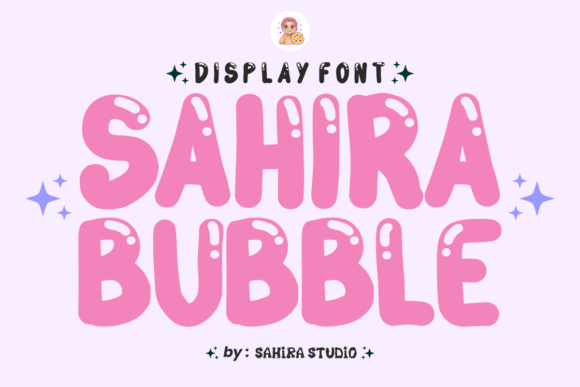
Sahira Bubble: A Springy, Handmade Display Font for Bold Designs
In the crowded landscape of digital and print media, grabbing attention often comes down to a single element: the typeface. While standard sans serif fonts provide clarity and traditional serif fonts offer authority, there are moments when a project demands something with more personality. This is where Sahira Bubble steps in. As a springy, handmade bubble display font, it brings an immediate sense of playfulness and energy that rigid, geometric typefaces simply cannot replicate. Whether you are designing a logo for a children's brand or creating social media graphics for a fun event, this creative font has the potential to transform a flat layout into something vibrant and engaging.
The Visual Personality of a Handmade Typeface
What sets Sahira Bubble apart from generic bubble letters found in basic word processors is its distinct, organic character. Unlike vector-based shapes that can feel cold or mechanical, Sahira Bubble mimics the imperfections and fluidity of hand-drawn lettering. The strokes vary slightly in weight, giving each character a bouncy, inflated appearance that feels tactile and approachable. It is a display font designed to be seen at larger sizes, where its unique contours and rounded edges truly shine.
The visual characteristics of this typeface lean heavily into the realm of modern typography that values authenticity over perfection. The "springy" quality mentioned in its description isn't just a metaphor; it is visible in the way the letters seem to hover off the page. This makes it an excellent choice for projects that need to communicate joy, creativity, or informality. When compared to a strict script font or a formal serif font, Sahira Bubble offers a middle ground that is legible yet distinctly decorative. It captures the essence of a handwritten font without sacrificing the consistency required for professional design assets.
Where Sahira Bubble Shines in Creative Projects
The versatility of Sahira Bubble extends across a wide range of applications, making it a valuable addition to any designer's library. Its primary strength lies in logo design, particularly for brands targeting younger audiences or those in the lifestyle, entertainment, and creative sectors. Imagine a logo for a toy store, a summer camp, or a craft workshop; the rounded, friendly nature of the letters instantly establishes a welcoming brand identity.
Beyond logos, this commercial font excels in packaging design. Products ranging from snacks to stationery can benefit from the eye-catching appeal of bubble letters on a label. In the world of editorial design, while it may not suit body text, Sahira Bubble is perfect for pull quotes, chapter headers, or magazine covers that aim to break the monotony of standard layouts. For small business owners and entrepreneurs, using this premium font on greeting cards, invitations, and promotional flyers can make their marketing materials stand out in a stack of competitors' work.
Physical products also gain a significant boost from this typeface. T-shirt screenprints featuring Sahira Bubble convey a casual, streetwear aesthetic that resonates well with consumers looking for unique apparel. Similarly, mugs and other merchandise items become more appealing when adorned with text that feels personal and crafted rather than mass-produced. Even in comics and graphic novels, this font can serve as a dynamic voice for characters or sound effects, adding a layer of visual storytelling that plain text cannot achieve.
Impact on Readability and Brand Perception
When integrating a bold display font like Sahira Bubble into a project, understanding its impact on readability and hierarchy is crucial. Because it is a display font, it is intended for headlines and short bursts of text rather than long paragraphs. Using it effectively creates a strong visual hierarchy, guiding the viewer's eye immediately to the most important information. However, designers must be mindful of spacing and size to ensure the text remains legible, especially when printed on smaller formats or viewed on mobile screens.
From a brand perception standpoint, choosing Sahira Bubble signals that a company is approachable, innovative, and unafraid to have fun. It breaks down barriers between the brand and the audience, fostering a sense of connection. In contrast, overusing such a stylized typeface can dilute professionalism if applied incorrectly. The key is balance. Pairing this creative font with a neutral sans serif font for body copy ensures that the message remains clear while the headline retains its punch. This strategic font pairing allows the playful elements of Sahira Bubble to enhance the overall design without overwhelming the content.
Audience engagement is another area where this typeface excels. In an era of rapid scrolling on social media graphics, a unique font can stop the scroll. The distinctive shape of the letters triggers curiosity, encouraging users to pause and read. For marketers and content creators, this increased dwell time can translate to higher conversion rates and better recall. The font acts as a visual hook, drawing people into the narrative before they even process the words.
Practical Guidance for Implementation
Before committing to Sahira Bubble for a major project, it is wise to evaluate the fit carefully. Start by considering the tone of your brand. If your message is serious, corporate, or somber, this font might send mixed signals. However, for anything related to creativity, leisure, education, or community, it is likely a perfect match. Always test the font in various sizes and contexts. What looks great on a large poster might lose definition on a business card.
Reviewing the included styles is also essential. Many premium fonts come with multiple weights or alternate characters that add flexibility. Check if Sahira Bubble offers these variations to see how they can be used to create emphasis within a headline. Additionally, consider the medium. Screen rendering differs from print, so ensure the curves remain crisp on both web design platforms and physical print runs.
Finally, never overlook licensing. As a commercial font, Sahira Bubble typically requires a license for use in client work, merchandise, or advertising. Ensure you understand the terms of use to avoid legal issues down the line. Investing in the proper license protects your business and supports the creator behind the typeface. By treating this font as a serious design asset rather than a novelty, you maximize its value and ensure your projects maintain a high standard of professionalism.
Ultimately, Sahira Bubble is more than just a collection of rounded letters; it is a tool for expression. Whether you are a seasoned graphic designer or a hobbyist crafting invitations for a family gathering, this font offers a unique opportunity to inject personality into your work. With careful application and an eye for detail, it can elevate simple concepts into memorable experiences.